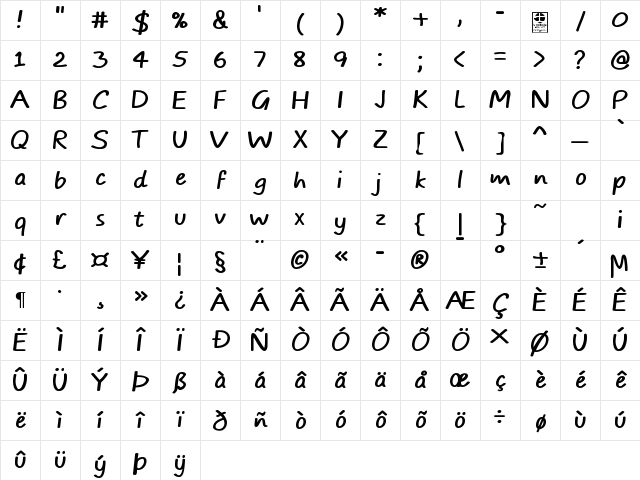
Complete TYPO COMICS DEMO Regular glyph index. Displaying only characters natively supported by TYPO COMICS DEMO Regular font.
TYPO COMICS DEMO has an approachable, lighthearted character - its loose, expressive forms are well-suited to children's content, casual branding, and fun-first design.
Font Pairing: Pairs well with a rounded or humanist sans for body copy, maintaining the friendly tone without relying on TYPO COMICS DEMO to carry extended reading.
Pro Tip: Use TYPO COMICS DEMO at larger display sizes where its expressive character can land. Pair with a clean, simple sans for body copy to maintain readability.